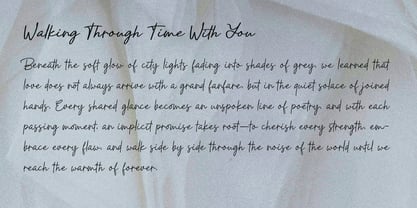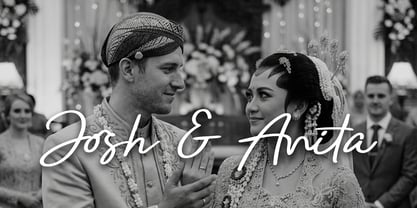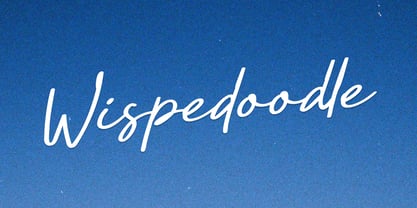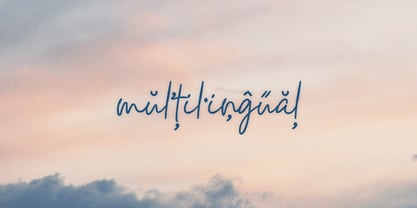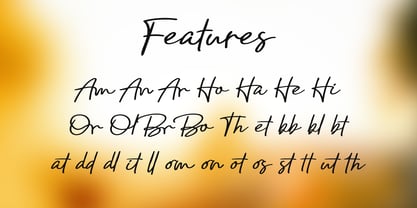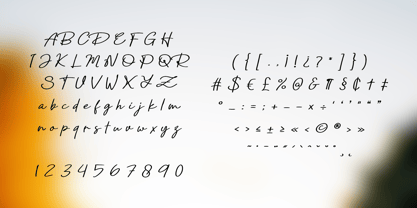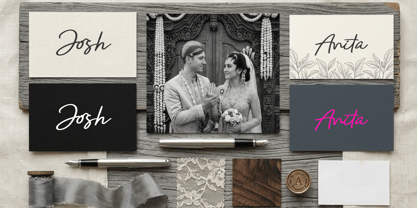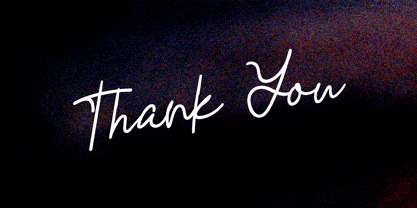
Wispedoodle
by ZorkSlide
The Wispedoodle Font Family was designed by Zuhayr Zunayra and published by ZorkSlide. Wispedoodle contains 2 styles and family package options. More about this family
Wispedoodle is a charming and whimsical handwritten script font with a delicate, flowing personality. Its thin strokes and naturally connected letters create an effortless handwritten look, giving every word a soft, playful, and personal touch.
Designed with expressive curves and a light, elegant rhythm, Wispedoodle is perfect for creating beautiful designs that feel warm, creative, and full of character. Whether you're designing logos, wedding invitations, social media graphics, quotes, branding, product packaging, or stationery, this font will add a unique handwritten charm to your projects.
Let Wispedoodle bring a touch of playful elegance and creative personality to your next design!
Perfect for:
Logos & Branding
Wedding Invitations
Social Media Posts
Quotes & Typography
Product Packaging
Greeting Cards
Stationery
Stickers
Handmade & Craft Projects
Beauty & Lifestyle Designs